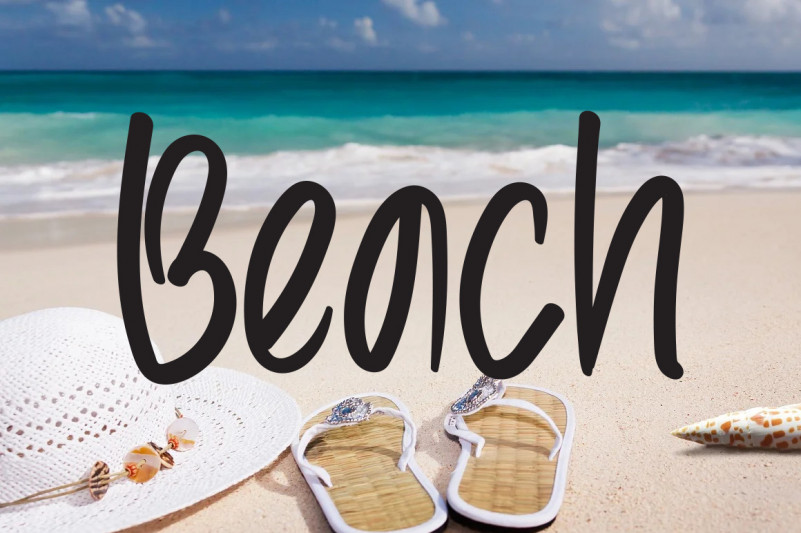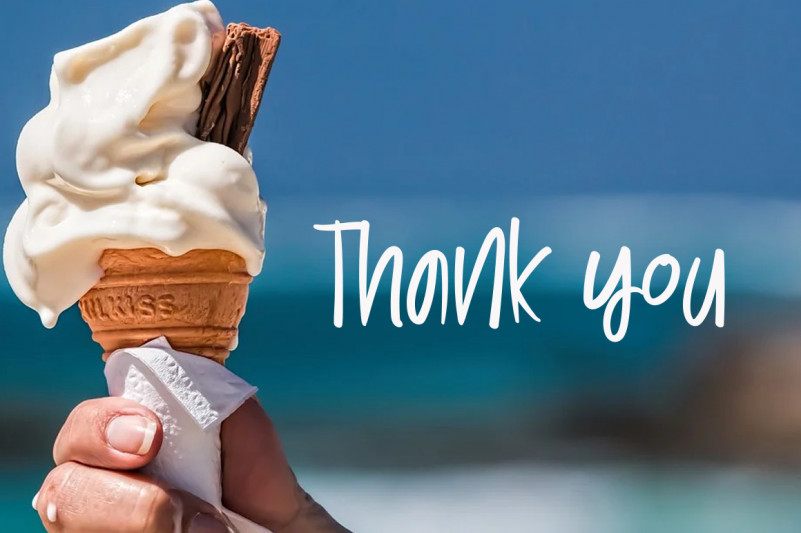
Simple Wedding Font is a quirky, fun and friendly handwritten font. Whether you’re looking for fonts for Instagram or calligraphy scripts for DIY projects, this font will turn any creative idea into a true piece of art!